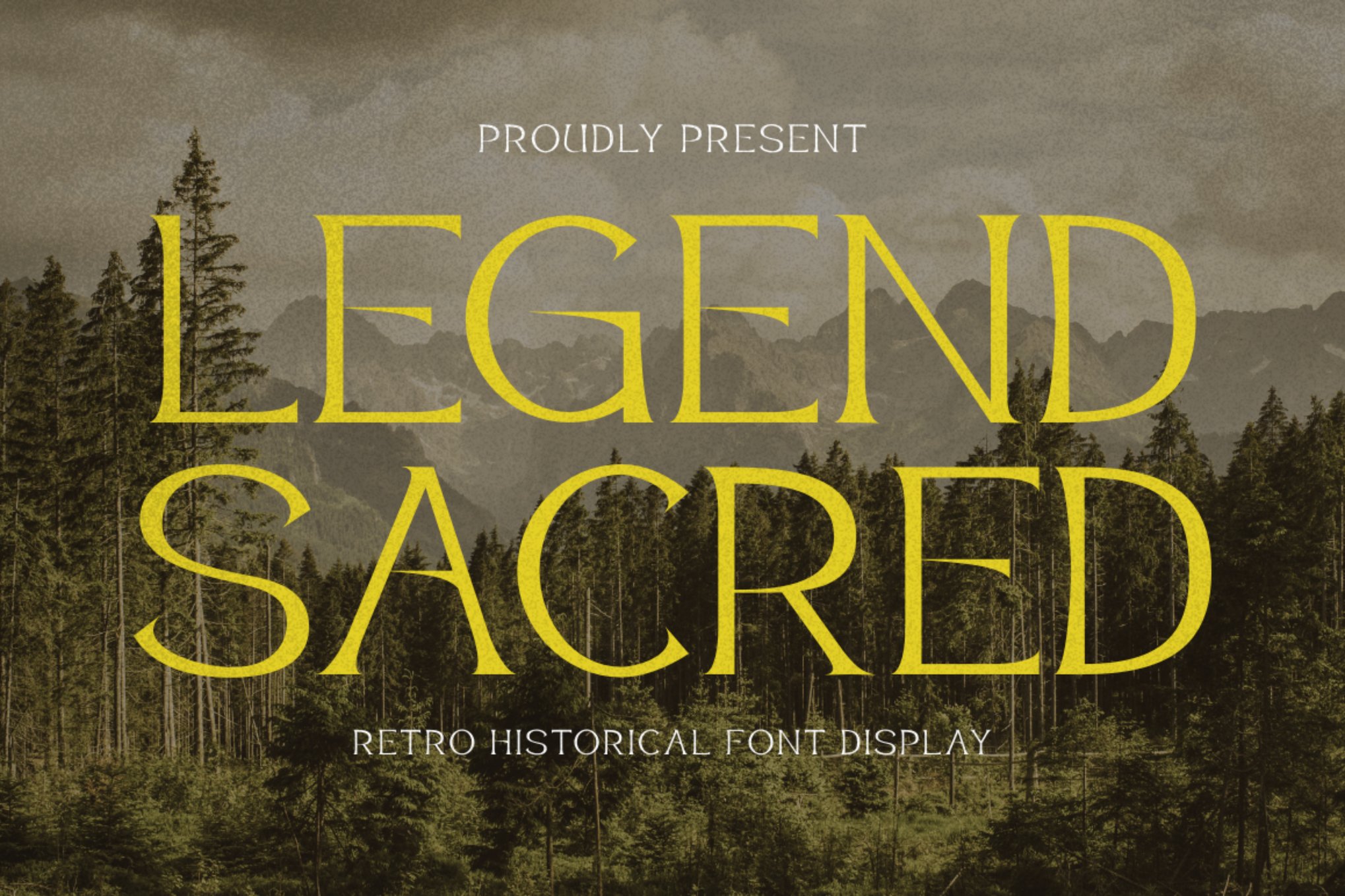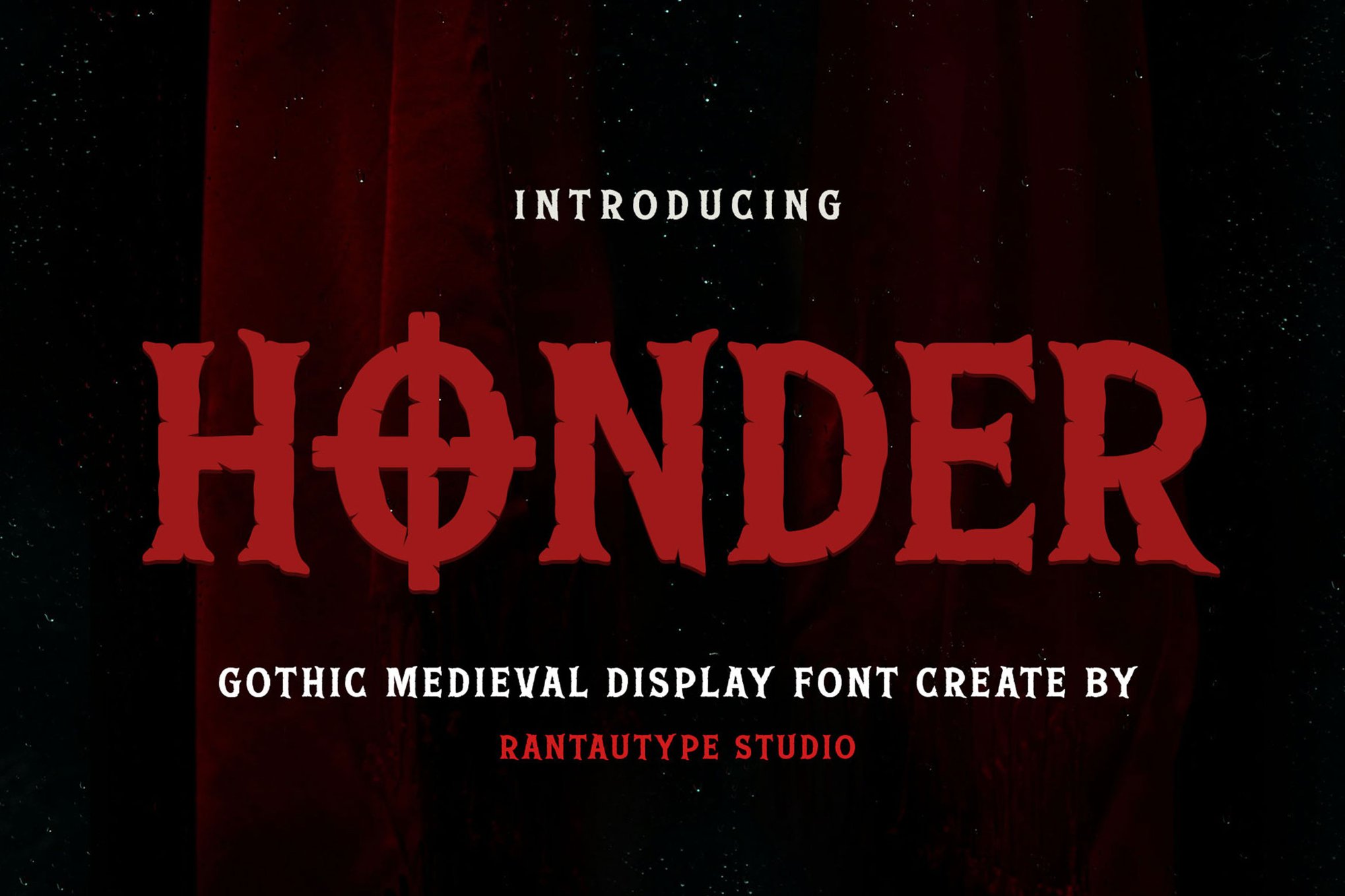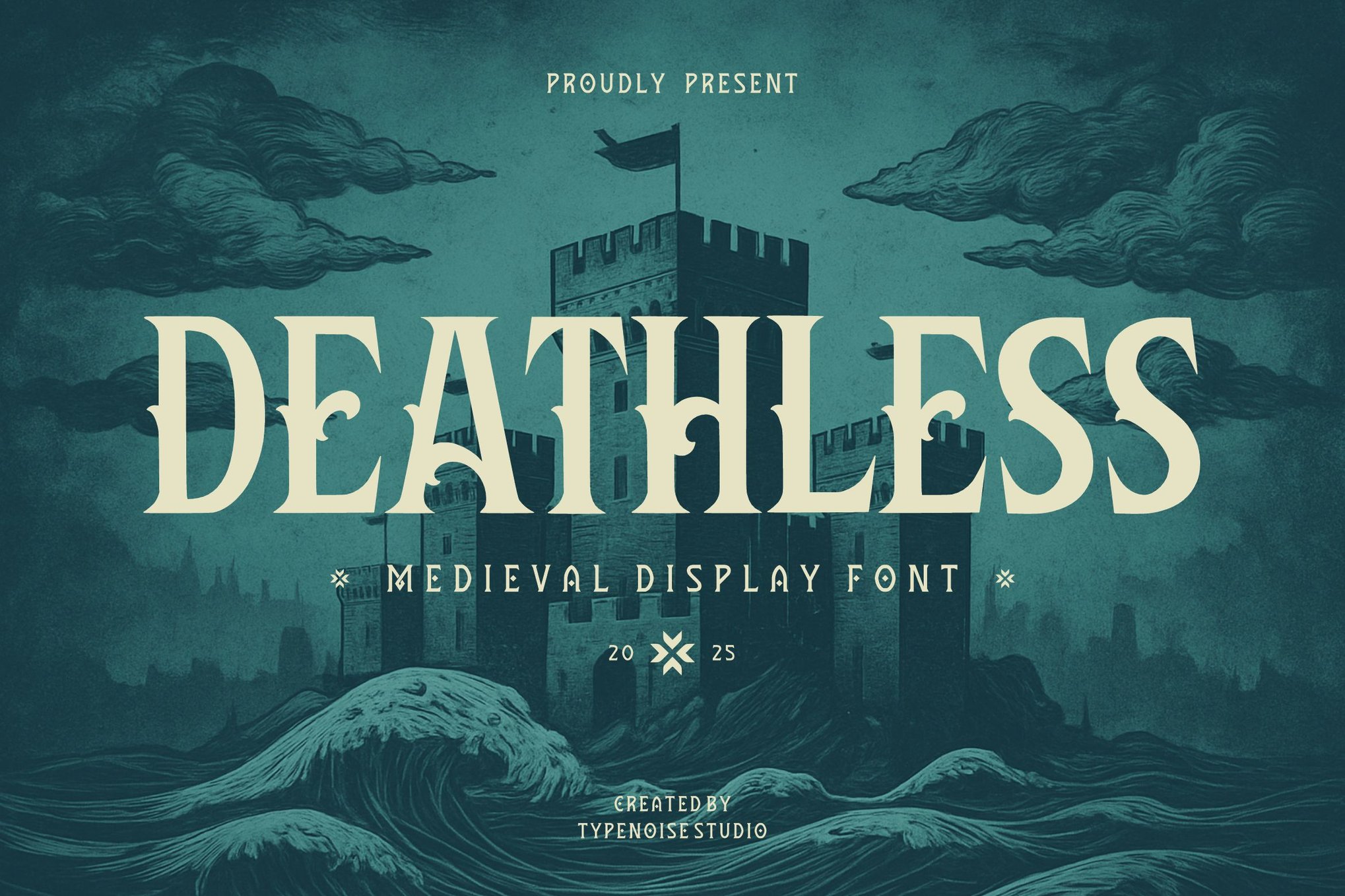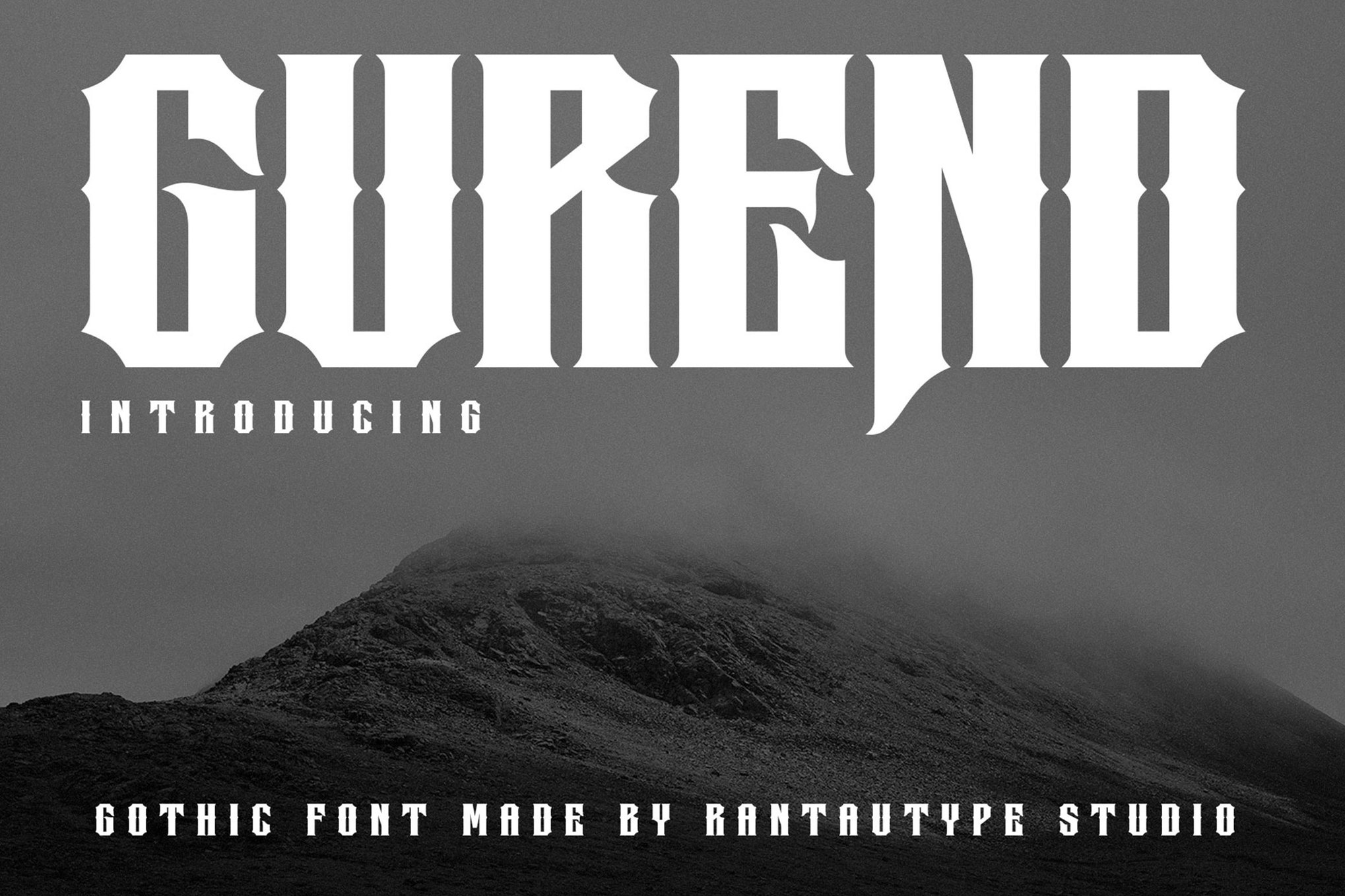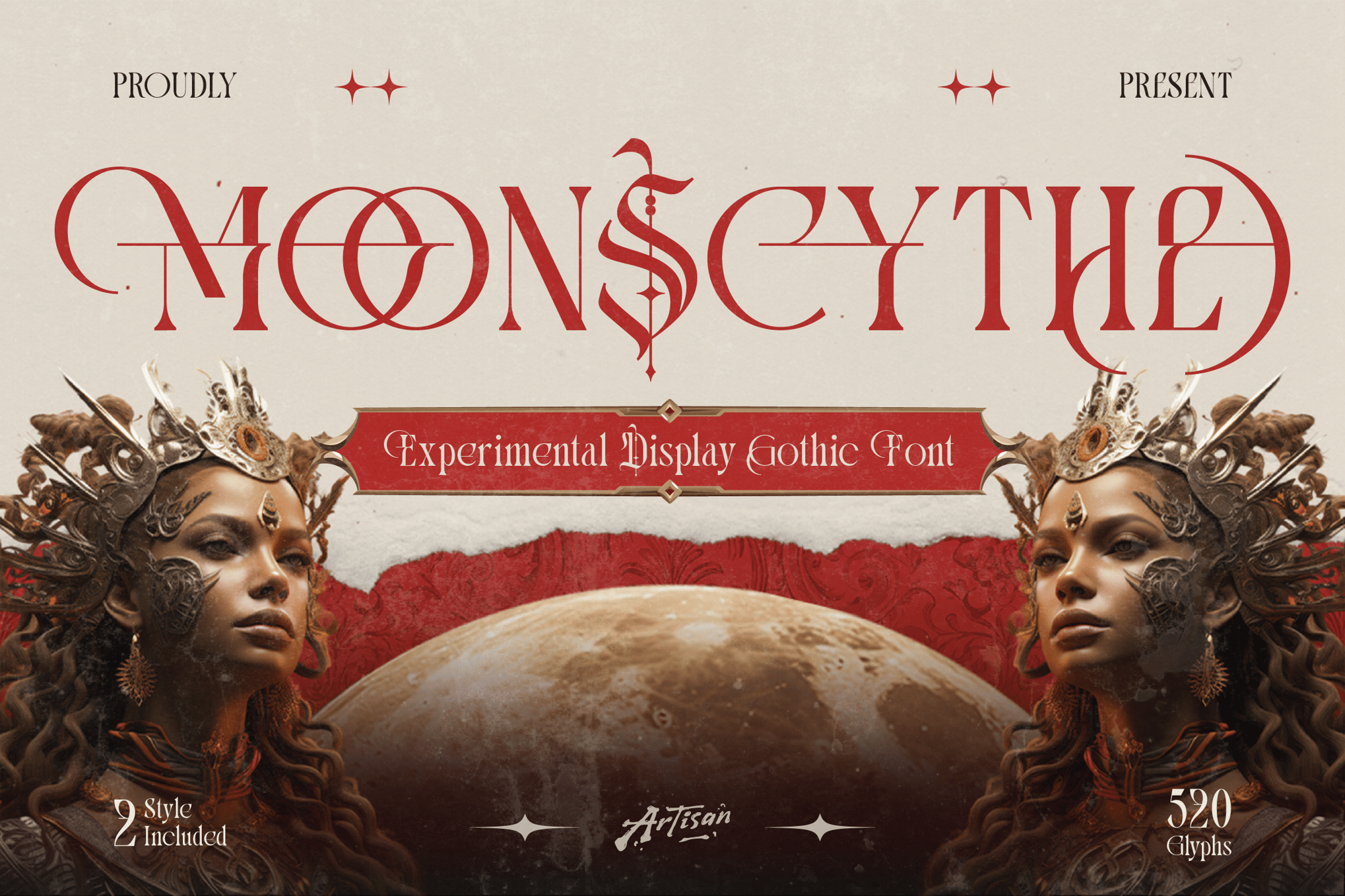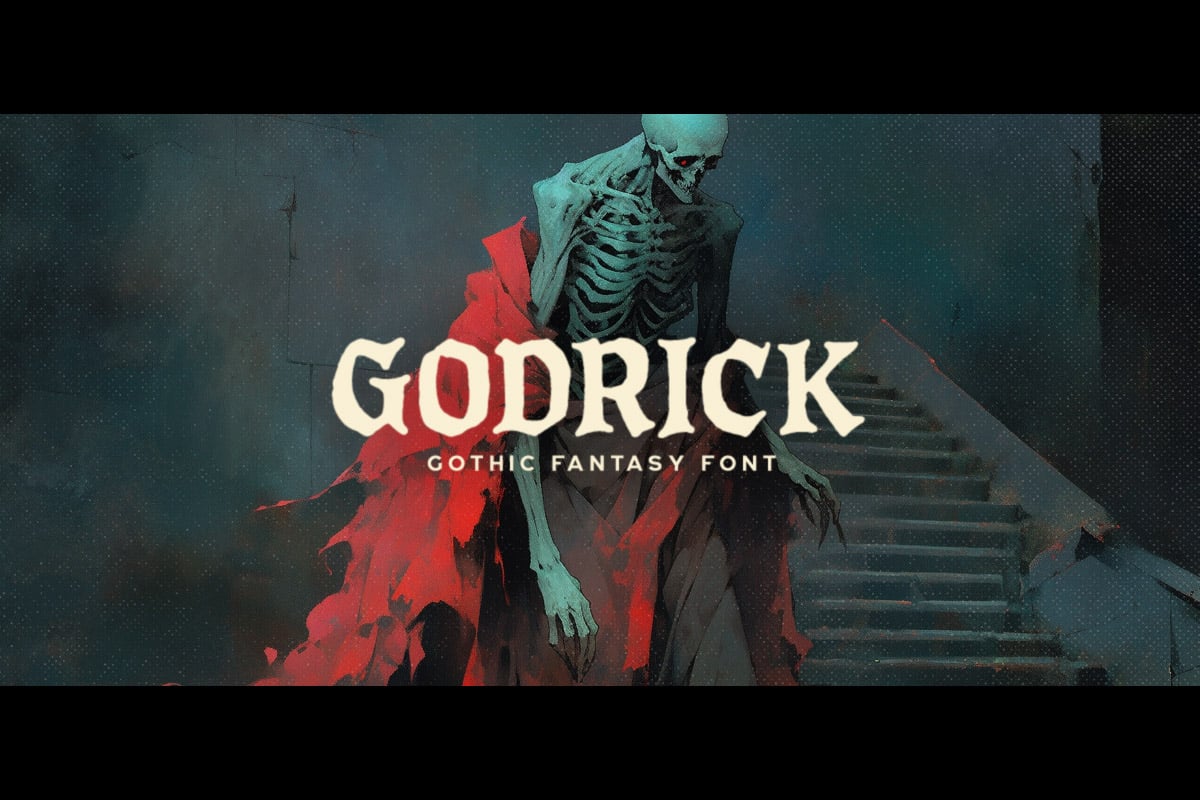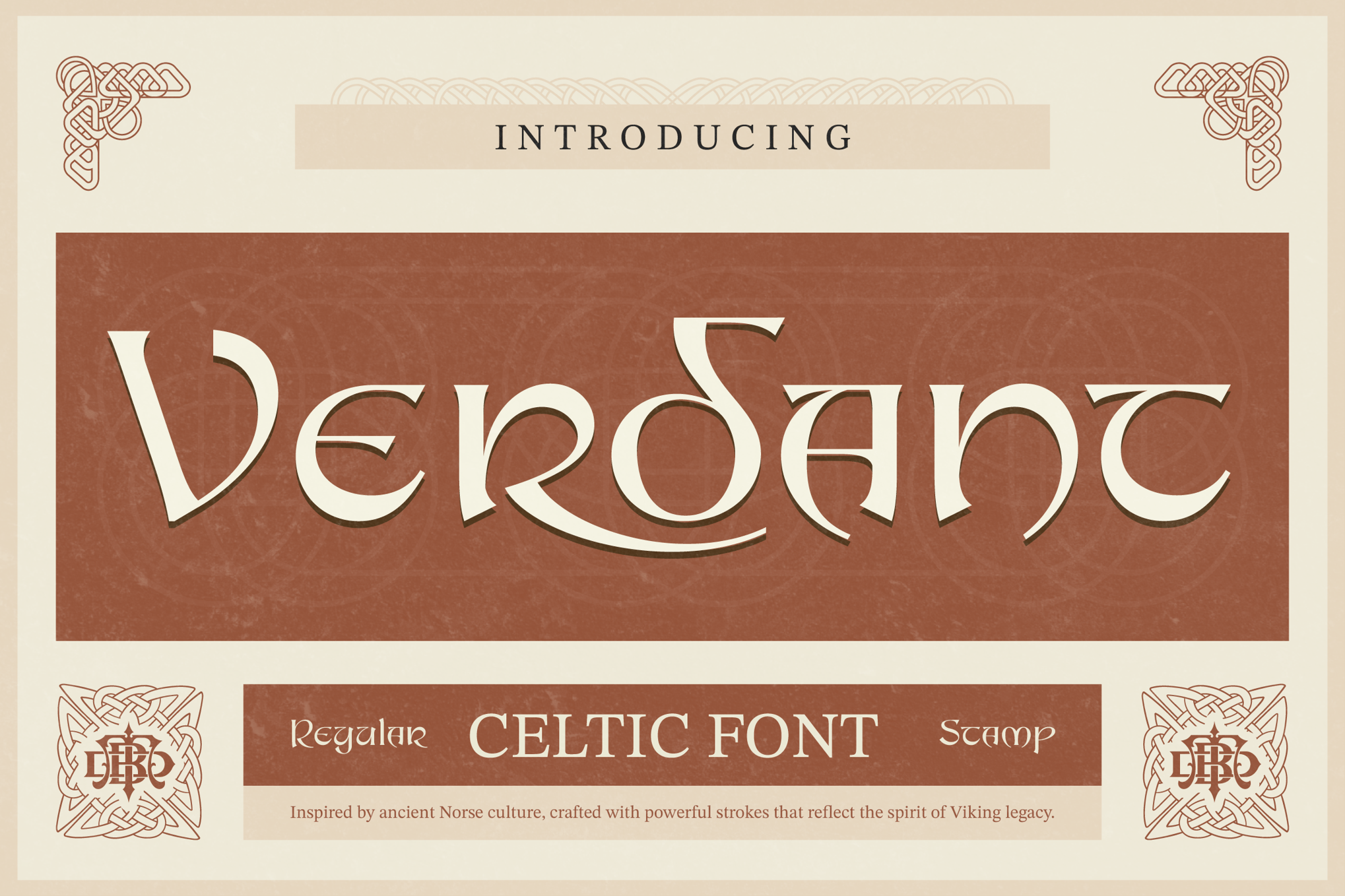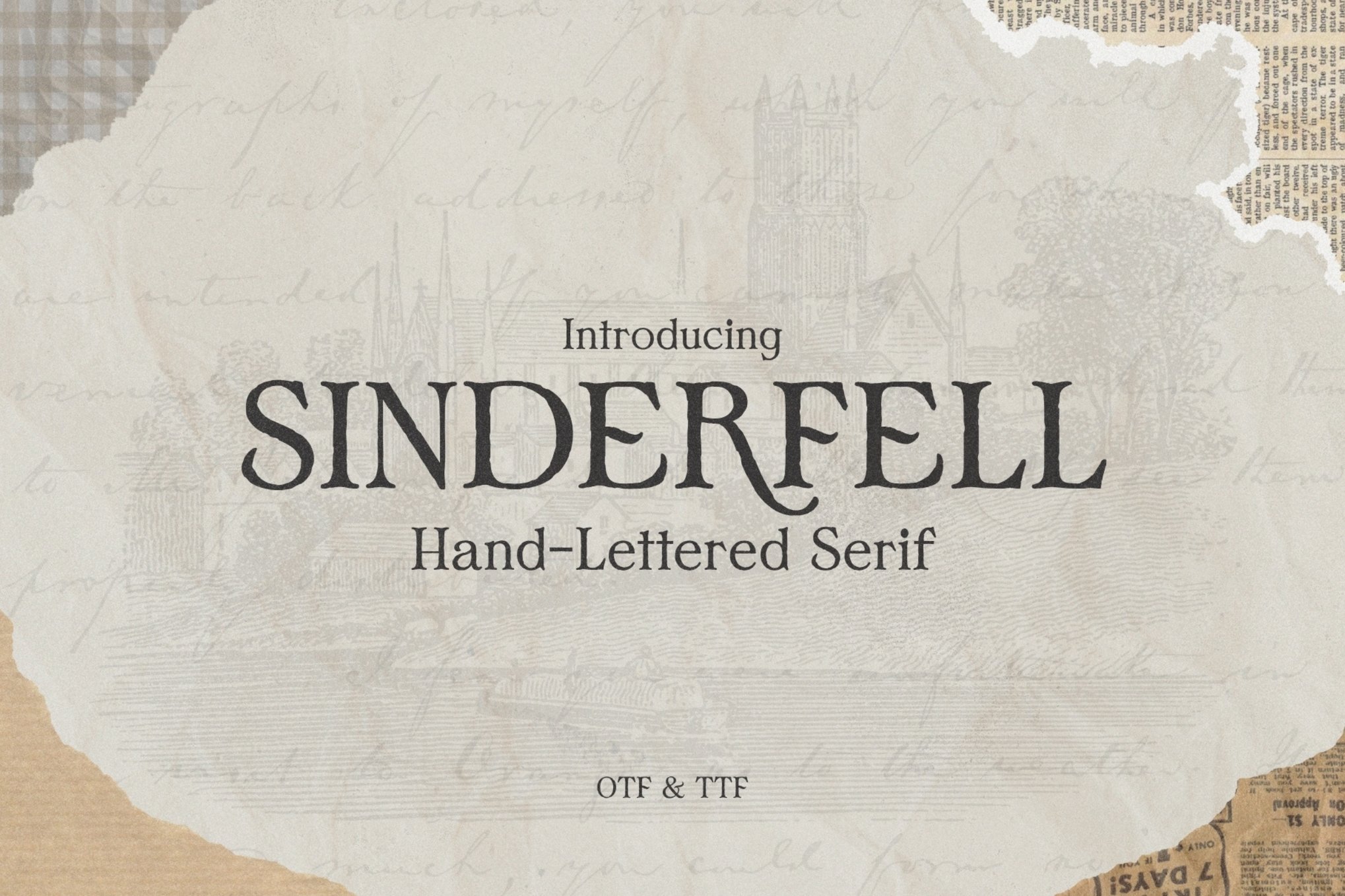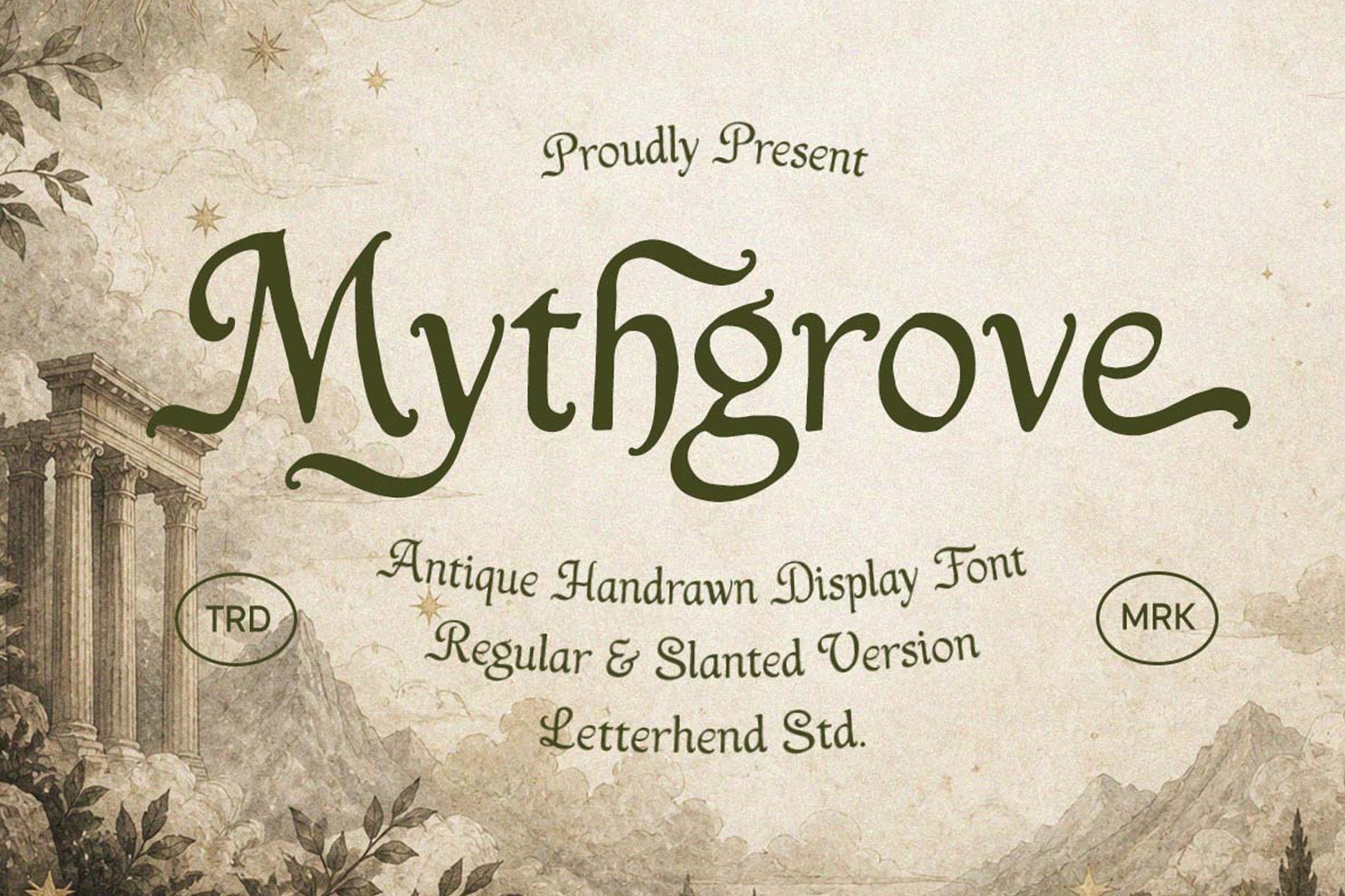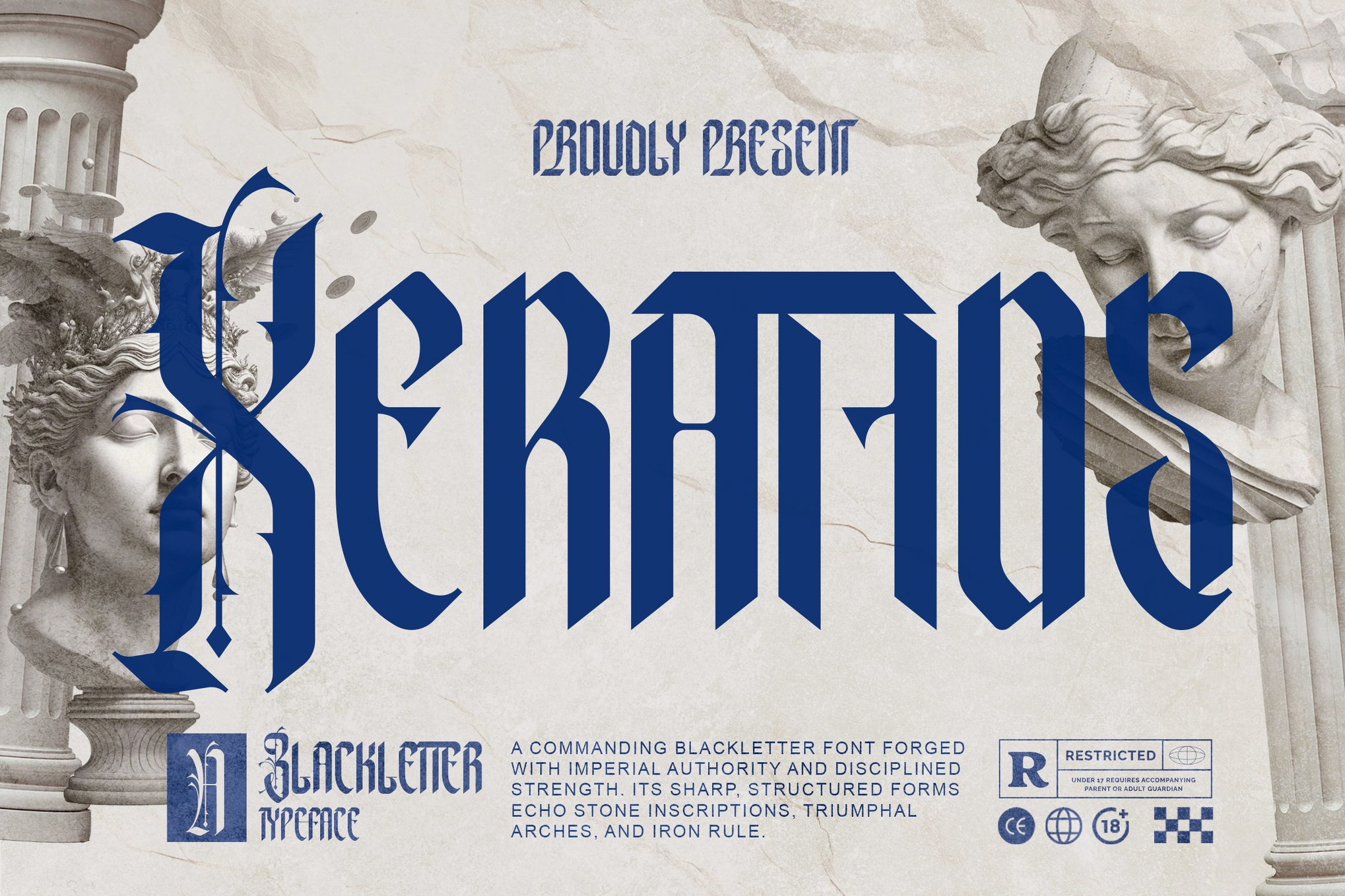
45 Exceptional Medieval Fonts
Today we take you back to the glorious medieval times full of castles, kingdoms, knights, and swords with our collection of medieval fonts.
When it comes to giving your designs a bold and powerful look, medieval typography is one of the best options you can use. They add a certain bold personality to designs that remind you of kings, queens, and empires.
These medieval fonts will help you add that same look and feel to various types of designs. Whether it’s a brand logo, drink label, or packaging design, you’ll find a font for all your projects on this list. Have a look.
Raven Hell Textura – Medieval Font
Raven Hell is a medieval font family that comes with 6 different styles of fonts for you to choose from. It has fonts with thin lines to thick bold letters for crafting headings and titles for all your designs.
The font is especially ideal for medieval-style badges, product labels, and big poster titles. It includes uppercase and lowercase characters as well.
Why This Is A Top Pick
The unique design of the characters in this font is unmatched by any other font on our list. It blends medieval-style elements with modern style to create an attractive look for all types of typography designs.
Legend Sacred – Historical Medieval Font
Legend Sacred is a historical serif font that draws inspiration from classic typography and medieval aesthetics. With strong serifs and refined details, it evokes an old-world charm, perfect for vintage branding or designs needing a legendary touch. Available in various styles and formats, it supports multiple languages.
Honder – Gothic Medieval Font
Honder is a captivating Gothic medieval font, perfect for adding a unique, historical touch to modern designs. Ideal for logotypes, covers, invitations, and more, it supports multiple languages and is easily accessible in major design software. With its blend of standard glyphs, alternates, and ligatures, Honder enriches any creative project.
Deathless – Bold Medieval Font
Deathless is a bold and detailed medieval-inspired font that brings elegant drama and timeless character to projects. With its sharp serifs and ornamental curves, it strikes a balance between dark fantasy aesthetics and clear readability. Ideal for crafting epic titles or adding antique flair, Deathless offers a strong visual impact.
Gurend – Gothic Medieval Font
Gurend is a captivating Gothic Medieval font inspired by historic manuscripts and blackletter typography. Perfect for adding elegance to modern creative projects, it enhances logos, titles, brands, invitations, and more. Available in Regular and Italic, Gurend supports multilingual characters.
Moonscythe – Experimental Medieval Font
Moonscythe is an experimental medieval font blending gothic and celestial influences. Its letters mimic crescent moons with sharp, blade-like serifs, creating a dark fantasy atmosphere perfect for gothic logos, medieval themes, and more. Offering a full set of alternates and ligatures, Moonscythe allows for custom compositions with a mystical, dramatic flair.
Godrick – Fantasy Medieval Font
Godrick is a vintage-inspired gothic font, perfect for adding a touch of medieval fantasy to any project. With its array of alternate letters, easily activated using Caps Lock, it offers a versatile and unique aesthetic. Available in OTF and WOFF file formats, Godrick is an excellent choice for creative designs that need a classic yet enchanting vibe.
Verdant – Celtic Medieval Font
Verdant is a Celtic-inspired medieval font that blends bold strokes with organic curves for a mythical and legendary feel. Available in both Regular and Stamp styles, it suits fantasy-themed designs like book covers, game titles, and logos. This versatile font supports multiple languages, includes alternates and ligatures, and offers a full character set.
Sinderfell – Hand Lettered Medieval Font
Sinderfell is a hand-lettered medieval serif font that exudes authenticity and warmth. Inspired by antique signage and traditional printmaking, this font combines organic textures and subtle imperfections to create a rich vintage feel. Ideal for everything from logos to wedding invitations, Sinderfell adds a nostalgic charm to designs while remaining elegant.
Mythgrove – Antique Medieval Font
Mythgrove is a delightful medieval font that captures the essence of ancient tales with its antique hand-drawn shapes and fantasy-inspired curves. This font combines gothic charm with playful readability, infusing your words with mystery and adventure. Available in OTF and TTF formats, it includes uppercase, lowercase, numbers, punctuation, alternates, ligatures, multilingual support, and PUA encoding.
Xerathos – Blackletter Medieval Font
Xerathos is a striking blackletter medieval font that blends gothic heritage with modern elegance, providing a monumental presence for your projects. Inspired by imperial traditions, its sharp angles and precise geometry convey authority and sophistication, making it ideal for luxury branding, editorial design, and more.
Cambridge – Bold Medieval Gothic Font
Gothic-style typography was a commonly used look in the old ages. It not only adds beautiful decorative elements to typography but also give a strong look to the overall design. This font has all those characteristics and more. It comes with uppercase and lowercase letters with lots of alternate characters.
Nightingale – Vintage Medieval Font
Nightingale is another beautiful medieval font that takes a stylish vintage approach to its letter design. This font has a set of decorative gothic-style uppercase letters and simple medieval lowercase letters. You can mix them both to craft bold and attractive titles for your designs. It’s perfect for signage and labels.
Kingvoon – Medieval Business Font
Kingvoon is a creative medieval font you can use with your professional design projects. It adds that classic medieval look to typography while maintaining a modern feel. The font comes in filled and outline versions as well as lots of glyphs, ligatures, and alternates to help make your titles look extraordinary.
Ring of Kerry – Irish-style Medieval Font
At first glance, this font will remind you of the typeface used in Lord of the Rings movies. But the true inspiration behind this font design comes from Irish-style lettering. If you want to craft designs that represent the same while adding a bit of a fantasy look to your lettering, this is the perfect font for you.
Three Clover – Free Medieval Font
This is a free medieval font that comes with a classic letter design. It features blackletter-style letters with beautiful decorative elements. You can use it for free with personal projects.
Banthern – Free Medieval Font
Banthern is a vintage font with a classic medieval set of characters. This font is ideal for bold title designs as well as for badges and labels. It includes alternates and ligatures. You can use the font for free in personal projects.
Gothica – Blackletter Medieval Font
Gothica is a beautiful blackletter font with a medieval-style letter design. This font has the perfect look for crafting big and attractive titles for magazine covers, CD covers, quote posts, custom T-shirts, and much more.
Kingston Williams – Blackletter Medieval Font
This font also has blackletter characters but also with a creative medieval letter design. It’s truly a one-of-a-kind font that includes uppercase and lowercase letters. It also has multilingual support.
THE QUIRONAX – Medieval Display Font
With more than 360 glyphs, 15 stylistic alternates, multilingual support, and ligatures, this font is one of the best fonts you can have in your collection. It comes in regular and slant font styles as well.
Aurel Shine – Blackletter Medieval Font
Use this vintage medieval-style font to design bold titles, unique product labels, and stylish branding designs. It includes lots of alternates and ligatures. The font also has uppercase and lowercase letters.
Free Dragonlord Medieval Font
This free font comes with a design inspired by dragons and medieval fantasy stories. It features stylish characters that truly stand out. You can use it for free with your personal projects.
Blackhead – Gothic Medieval Font
Blackhead is a different style of medieval font that has a design mixing both modern and vintage elements. It’s perfect for modern branding designs as well as for product labels and title designs.
Lordish – Blackletter Medieval Font
Lordish is a blackletter-style medieval font that features unique and stylish characters. It’s great for designing badges and logos for brands that use vintage themes. The font comes in thin, light, and regular font weights.
Shiny Kage – Blackletter Medieval Font
You can use this font to design typography with a daring look and feel. It features a decorative letter design that will add a unique look to your posters, T-shirts, mugs, and various other print and digital designs.
Wishbone – Retro Medieval Serif Font
Wishbone is a retro-themed medieval font featuring serif letters. It has unique letters that alternate between thin and thick strokes. This font is great for everything from video game titles to book covers, business cards, and much more.
Free Gotika Ornament Medieval Font
This font is also free to download and use. It features a unique gothic-style design inspired by the middle ages. It also has letters featuring floral designs.
Black Baron – Bold Medieval Font
Black Baron is a classic medieval font with bold letters and decorative elements. You can use it to craft big titles for your product packaging designs, custom T-shirts, or even website headers. The font includes uppercase and lowercase letters with glyphs and ligatures.
England – Classic Medieval Font
Inspired by typography from the medieval age, this font puts a modern spin on the letter design to create a unique look for this typeface. It has a cool and stylish look unlike any other font on our list. The font is perfect for everything from label designs to badges and T-shirts. As an added bonus, it comes with a set of ribbons with matching designs in vector format.
Livingstone – Medieval Blackletter Font
Livingstone is a blackletter-style font that features a set of letters with medieval-themed designs. This font will allow you to design bold headings and titles for posters, CD covers, book covers, and product packaging designs. It’s also suitable for designs related to rock and metal music.
Odd Times – Medieval Calligraphy Font
Odd Times is a classy medieval calligraphy font that features blackletter-style characters. This font also uses beautiful brush-style strokes that give each letter a unique look. It’s ideal for modern branding designs, badges, and signage. The font includes uppercase and lowercase letters.
The Ancient – Medieval Decorative Font
Another bold medieval decorative font with strong characters. This font is most suitable for designing big titles for posters, YouTube videos, movies, and website headers. It features all-caps letters with a set of small-caps characters.
Black Mild – Free Classic Blackletter Font
Black Mild is a classic blackletter font that features a medieval-style letter design. This font has beautiful letters that are most suitable for designs related to feminine brands and businesses. The font is free to use with personal projects.
Scotland – Free Blackletter Medieval Font
You can use this font for free with both personal and commercial projects. The font comes with an old-school medieval look that fits in well with drink labels, packaging designs, and signage.
Belmont – Stylish Medieval Font
Belmont features a cool and stylish medieval-themed letter design that makes it one of a kind. This font is perfect for designing titles for YouTube thumbnails, posters, book covers, and everything in between. It includes all-caps letters with alternate characters.
Old Charlotte – Decorative Gothic Medieval Font
This font gives off a spooky horror vibe with its decorative gothic letter design. It also features a medieval typography look that offers a unique approach for crafting title designs for your Halloween-themed designs, horror movie posters, drink labels, and more.
Fancy Quisley – Blackletter Medieval Font
This is a decorative blackletter font with a medieval-style letter design. You can use it to design bold titles for posters, product packaging designs, signage, badges, and so much more. The font includes uppercase and lowercase letters with lots of alternates, and ligatures to choose from.
Rozex – Bold Medieval Gothic Font
Rozex is a classic medieval font with a hand-lettering character design. This font has big bold letters that are made for attention-grabbing titles and headings. It includes plenty of alternate characters and ligatures for you to craft unique typography designs of your own.
Astral – Medieval Display Font
Astral is an all-caps display font that includes a set of unique medieval-style letters. It has the perfect look for designing logos for luxury brands as well as product packaging designs and labels. The font can be used to craft movie posters, book covers, and video game titles as well.
Holofcast – Free Medieval Display Font
The vintage medieval-style character design gives this font a very unique look unmatched by other fonts on our list. It’s perfect for crafting bold titles and headings for modern designs as well. You can use it for free with personal projects.
House Of The Dragon – Free Medieval Font
This font has a classic blackletter design that comes in 4 different styles. It includes bold and decorative letters that will add a classic look to your modern design projects. It’s free for personal use.
King Castle – Celtic Medieval Font
Kind Castle is a medieval font inspired by Celtic typography styles. It has a friendly and casual letter design that makes the font a great choice for many different types of designs, including branding designs and stationery designs. The font comes with uppercase and lowercase letters with alternates.
Othelie – Fashionable Medieval Font
A big bold medieval font for crafting big titles for your designs. This font is perfect for designing titles for posters and banners that can be seen from far away. It also features lots of alternate characters with decorative elements to help make your typography designs look even more unique.
Bahisy – Blackletter Medieval Font
Featuring a classic blackletter design this medieval font allows you to craft stylish T-shirts, flyers, product labels, and signage for many different types of brands. The font includes lots of alternates, ligatures, and multilingual support as well.
Serkan – Celtic Medieval Font
Another medieval font inspired by Celtic typography. This font features very stylish letters that look a lot like characters out of an old papyrus. It includes both uppercase and lowercase characters too.